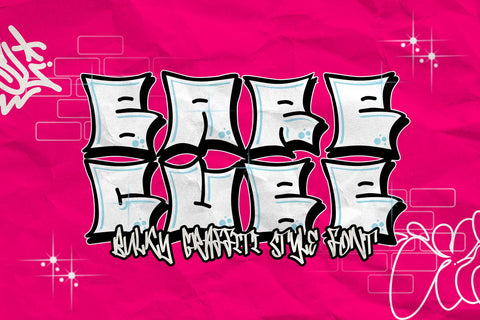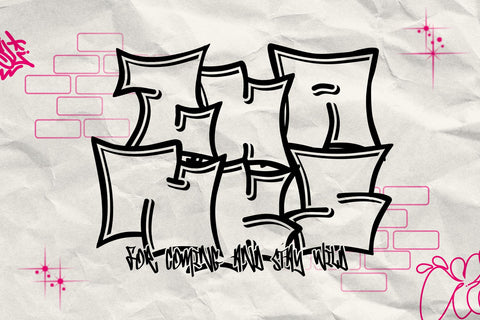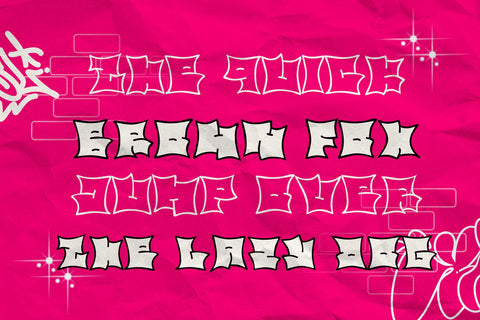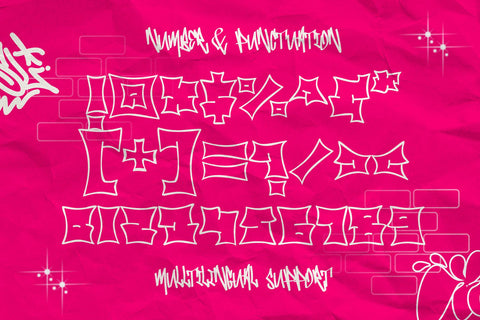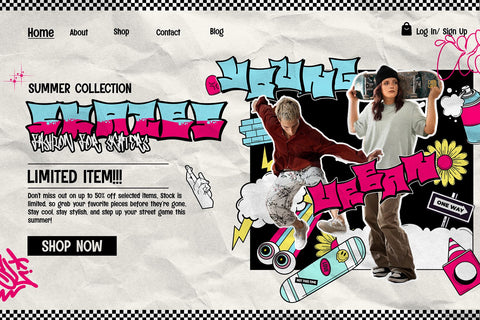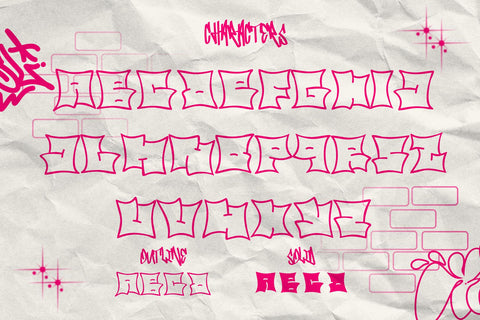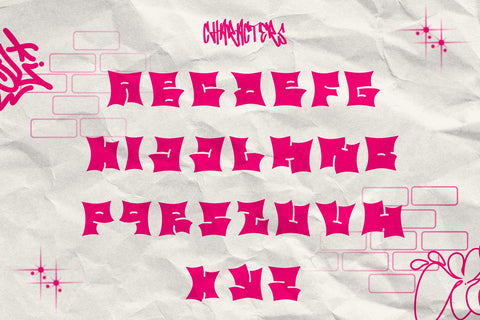
Bare Cube - Bulky Graffiti Style Font
Bare Cube is a bold, bulky graffiti font designed to stand out with its two distinct styles: outline and solid. The outline style gives a sharp, defined edge, perfect for layering or creating striking visuals, while the solid version brings a heavy, bold appearance that commands attention.
Whether you're working on urban-themed projects, street art designs, or creating impactful headlines, Bare Cube delivers a strong graffiti-inspired vibe with its thick, rounded characters. It's ideal for giving your designs a raw, edgy, and street-smart look, enhancing posters, branding, and any creative project that calls for a bold, modern aesthetic.
- 3d Layer Graffiti